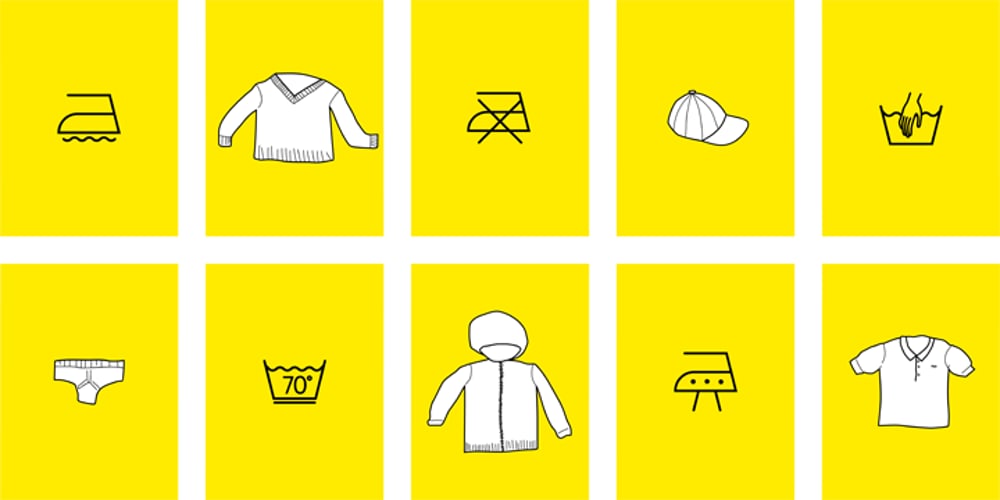
Washing Machine Font Family was designed by published by studiocharlie. Washing Machine contains 3 styles and family package options. Washing machine is a collection of washing industry icons. The collection is really wide and you can find the same symbols in two weights. The extras style is composed of funny clothes pictures.